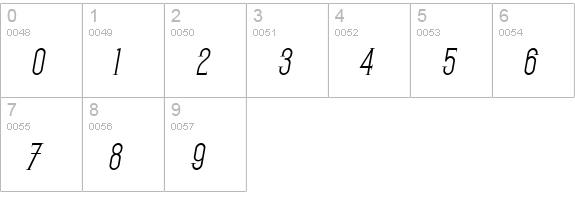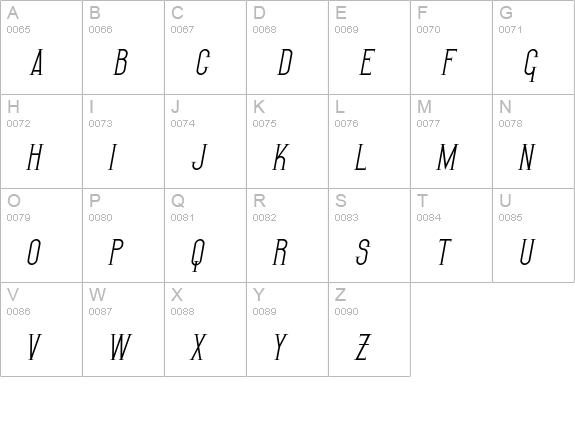
SF Gothican Oblique Font Details
SF Gothican Oblique is a distinctive, italic variant in the SF typeface family \xE2\x80\x94 well suited to design and typography projects.
SF Gothican Oblique font is a unique and captivating typeface that effortlessly combines the enigmatic elements of Gothic design with a modern twist. With its dark and mysterious aesthetic, this font is perfect for adding a touch of intrigue to any project, whether it be a logo, poster, or website. The SF Gothican Oblique font features sharp and angular letterforms that evoke a sense of elegance and sophistication. Its slanted and oblique style adds a dynamic and energetic feel to any text, making it stand out from the crowd. One of the best things about SF Gothican Oblique font is that it is freely available to download at FontsMarket.com. This means that you can easily access this captivating font without any restrictions or limitations. Whether you are a professional designer or a casual user, you can enjoy the benefits of this font without any hassle. With its bold and striking appearance, SF Gothican Oblique font is sure to make a lasting impression. Its versatility allows it to be used in a wide range of design projects, from branding to invitations. The attention to detail in its design ensures that every character is beautifully crafted, resulting in a visually stunning end result. So, if you are looking for a font that exudes a sense of mystery and sophistication, SF Gothican Oblique font is the perfect choice. With its freely available download at FontsMarket.com, you can easily incorporate this captivating font into your next design project and create something truly remarkable.